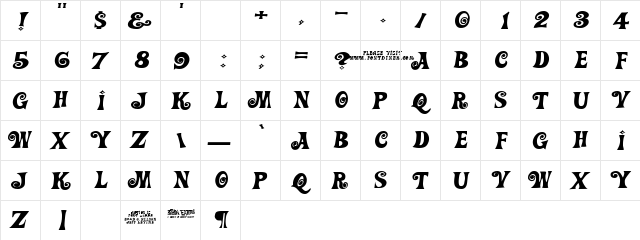
Action Is JL Expanded
Design Context for Action Is JL Typeface
Action Is JL is a composed and adaptable typeface that performs quietly and consistently across a wide range of design contexts.